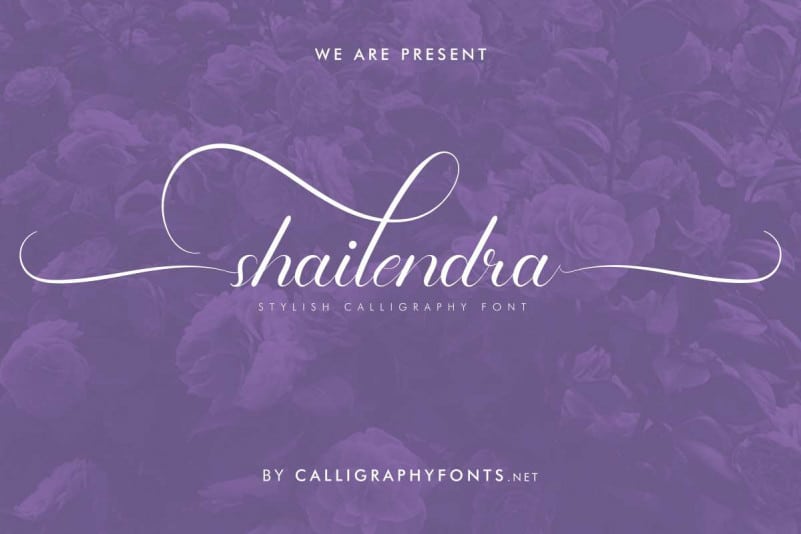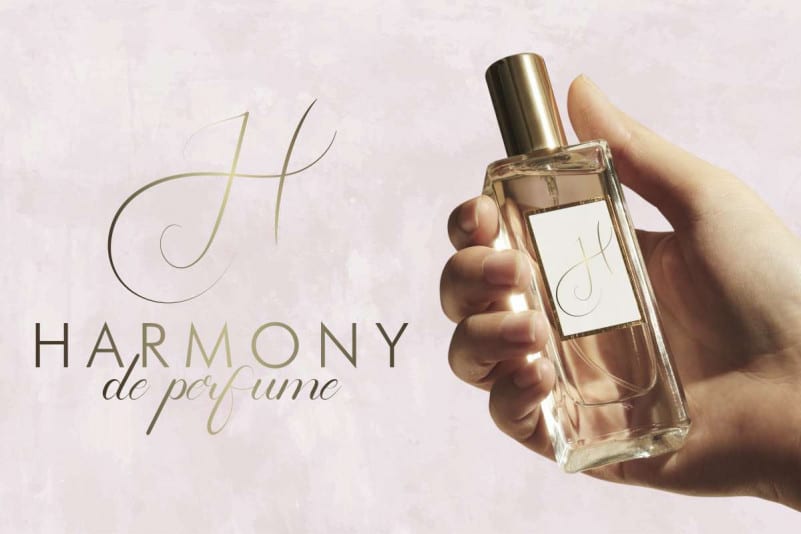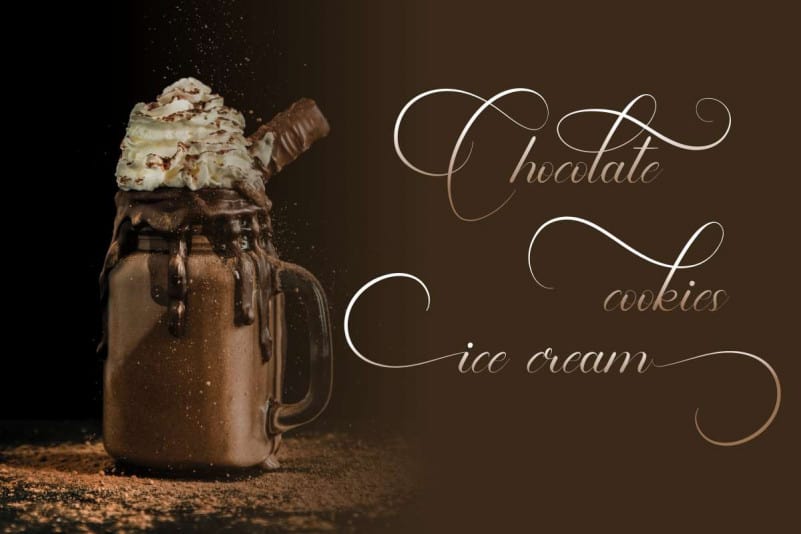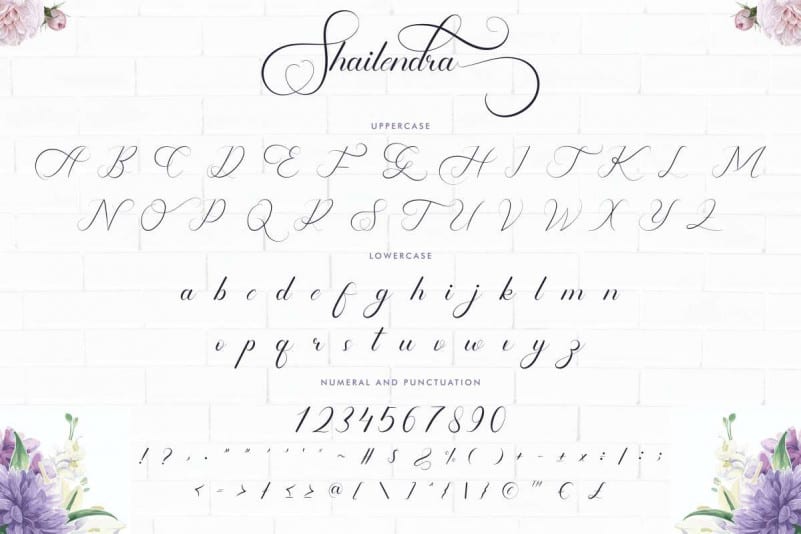
Shailendra Calligraphy Font
Shailendra is a Calligraphy script font. The style of this font are elegant, luxury, glamour, modern and sophisticated brush pen.